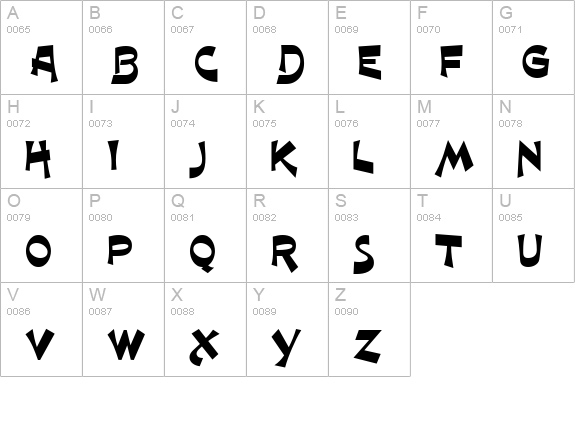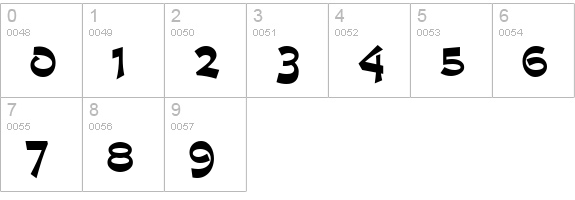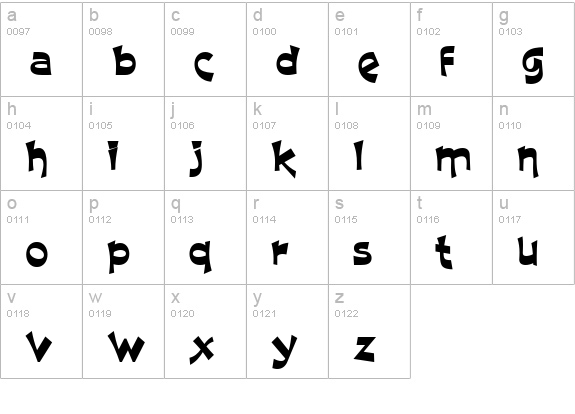
HardyHarHarNF Medium Font Details
HardyHarHarNF Medium is a balanced, medium-weight variant in the HardyHarHarNF typeface family \xE2\x80\x94 well suited to sub-headlines, navigation, and balanced editorial work.
HardyHarHarNF Medium font is a delightful and playful typeface that will bring a touch of whimsy to any design project. With its rounded edges and slightly exaggerated letterforms, this font exudes a sense of fun and lightheartedness. Perfect for headlines, logos, posters, and more, HardyHarHarNF Medium font is sure to catch the eye and make a lasting impression. Whether you're designing for a children's book, a party invitation, or a creative branding project, this font will add a cheerful and energetic vibe. Not only does HardyHarHarNF Medium font offer a unique and captivating visual experience, but it also comes with the added bonus of being free to download. That's right, you can easily access this font without breaking the bank. Simply head over to FontsMarket.com and enjoy the freedom of using this font in your designs. So why wait? Let your creativity run wild with HardyHarHarNF Medium font. Download it today and infuse your projects with a dose of joy and playfulness.